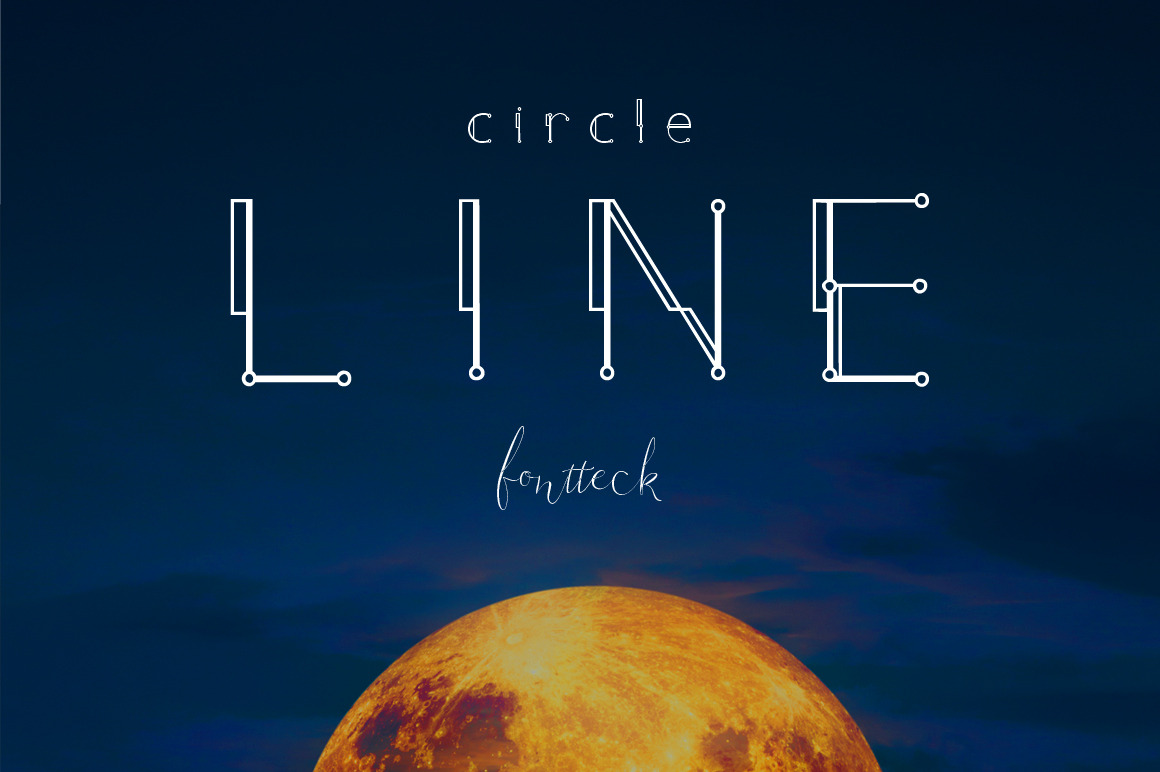
Circle Line Suarnegara Font, An all-caps. Includes a full character and number. Should be used at 12 pt. recommendation that is used to design the theme of the future and technology